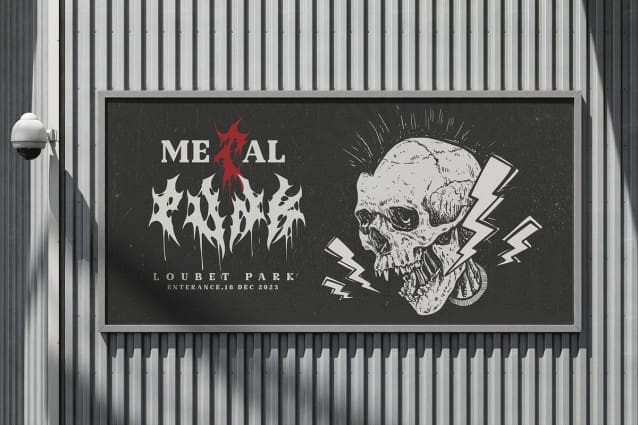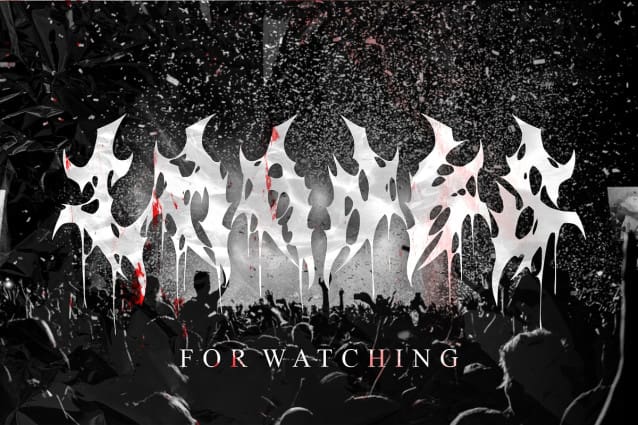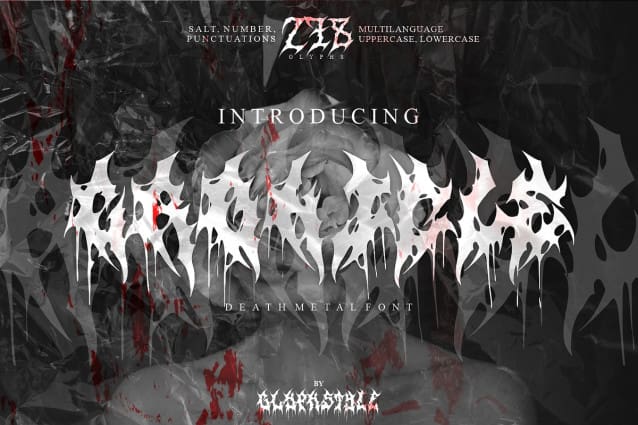
Cronicle Death Metal Font
Cronicle Death Metal Font is a metal display font. Uppercase and lowercase letters are available, simpler than other metal fonts and legible. Display font with metal or rock music theme.
Cronicle is perfect for branding projects, logos, wedding designs, social media posts, advertisements, product packaging, product designs, labels, photography, watermarks, invitations, stationery and any project that requires a font with metal/rock themed